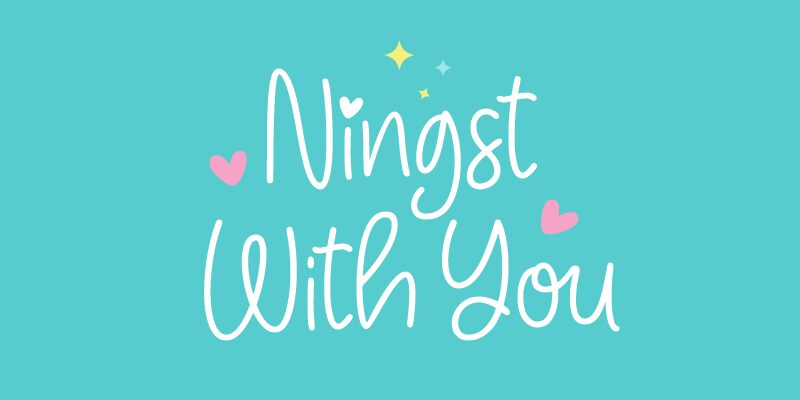
Ningst With You is a cute handwritten font designed by Nista Ningsih Nazara and Situjuh Nazara. Its light weight makes it suitable for a variety of projects such as invitations, greeting cards, posters, and social media posts.
Ningst With You